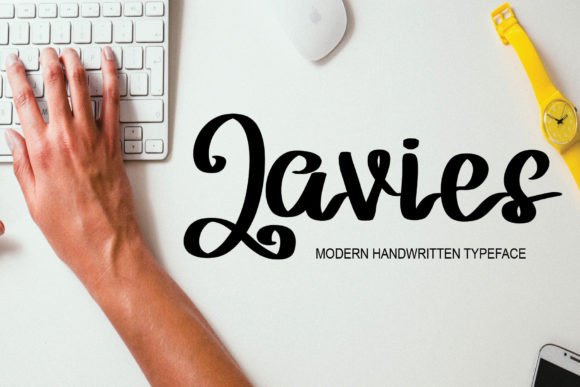
Javies Font
About Javies Font
Javies is a font written by hand using a tablet, this font is very simple and written very carefully. The font can also be used for websites, wedding invitations, business cards, signatures, and advertisements, be it product advertisements or other advertisements. Even though it looks simple, this font still looks cool and stylish.